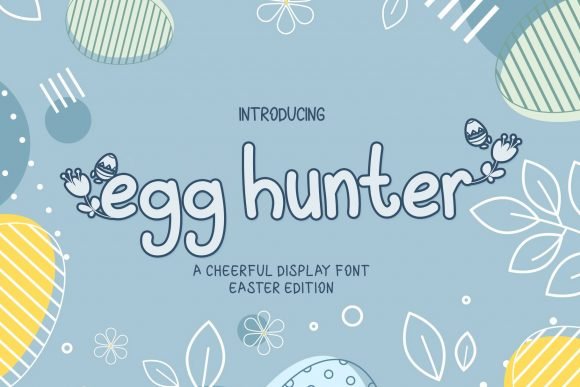
Introduction to Egg Hunter Font
Egg Hunter is a cheerful display font with unique ornaments.
It’s perfect for Easter themed designs, cards, branding, stationery, blog design, custom art, quote, and many more This font is PUA encoded which means you can access all of the glyphs and swashes with ease.